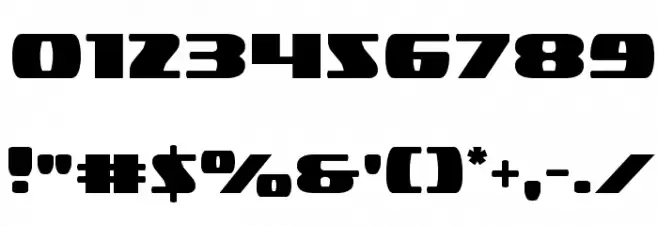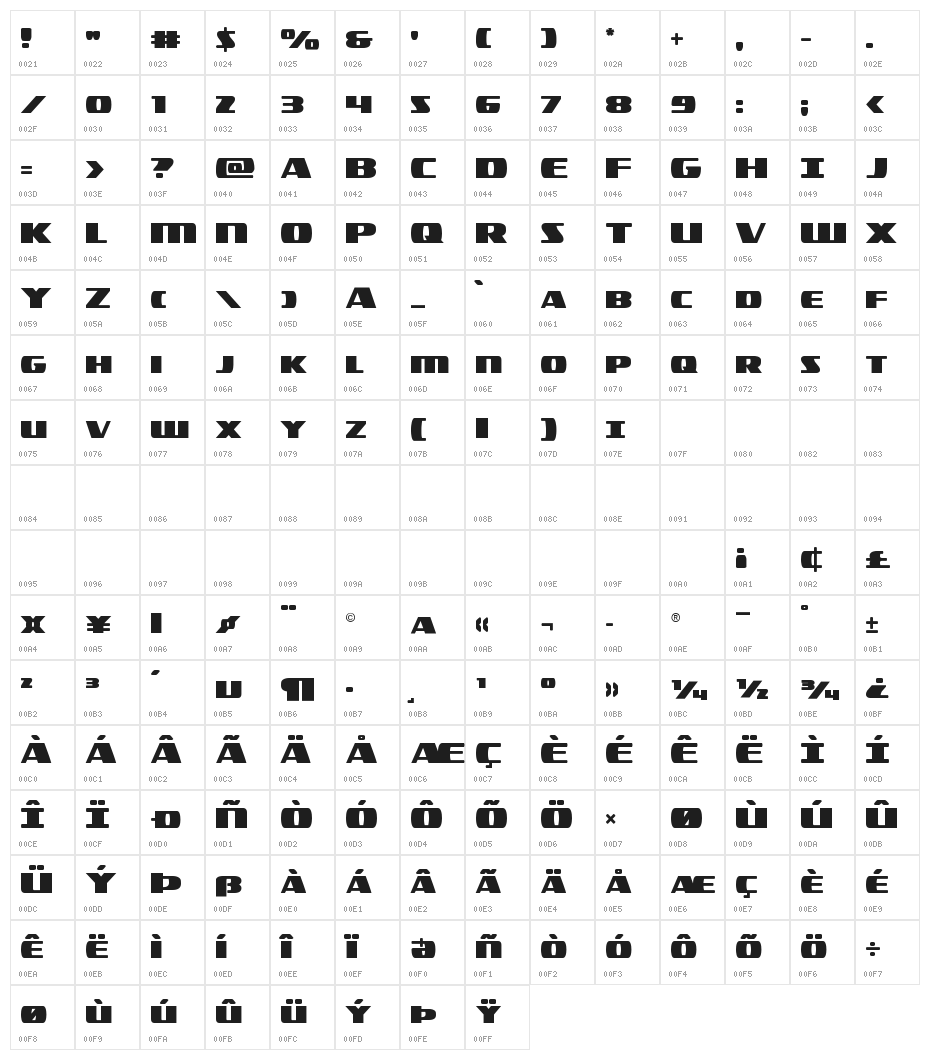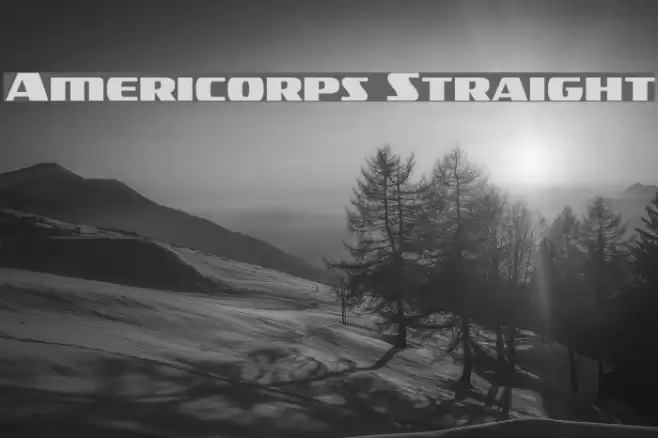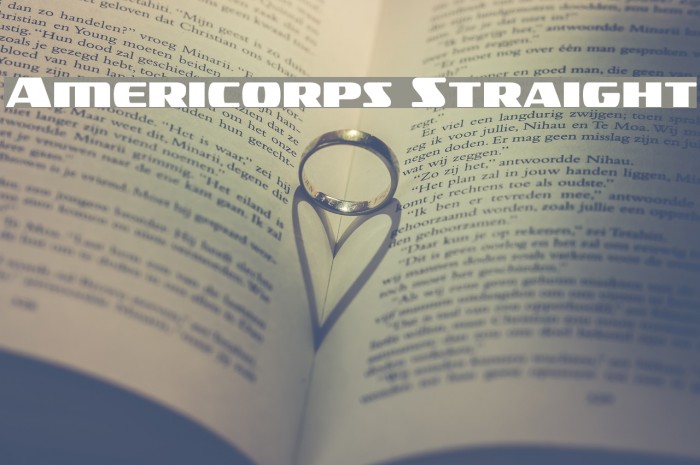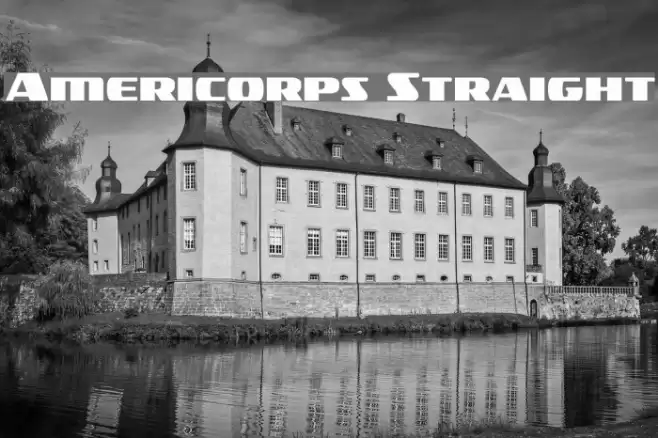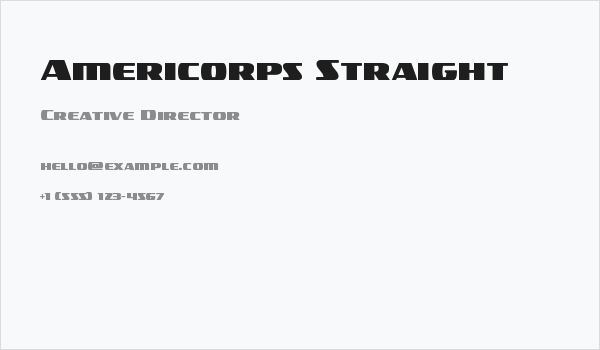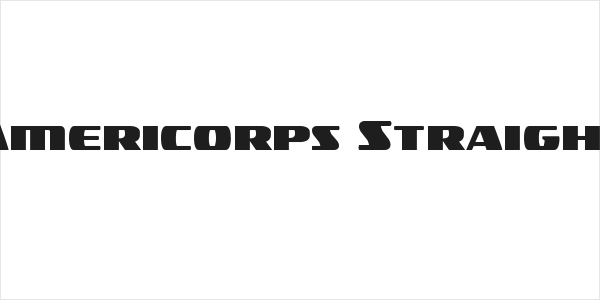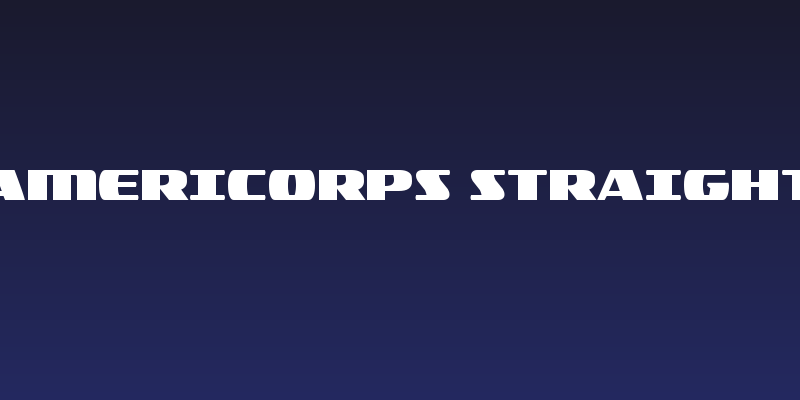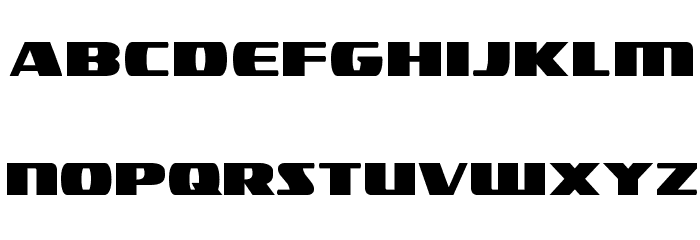
Americorps Straight Font
Americorps Straight Description
This font features a bold and impactful design with a strong geometric structure. The characters are wide and have a uniform thickness, giving them a robust and solid appearance. The uppercase letters are particularly striking, with sharp angles and a modern aesthetic. The lowercase letters maintain the same boldness, ensuring consistency across text. Numbers and special characters are designed to match the overall style, making this font suitable for attention-grabbing headlines and titles. Its strong presence makes it ideal for projects that require a commanding visual impact.
| Proposed Projects | Ideal for branding, posters, headlines, and any design that requires a bold statement. |